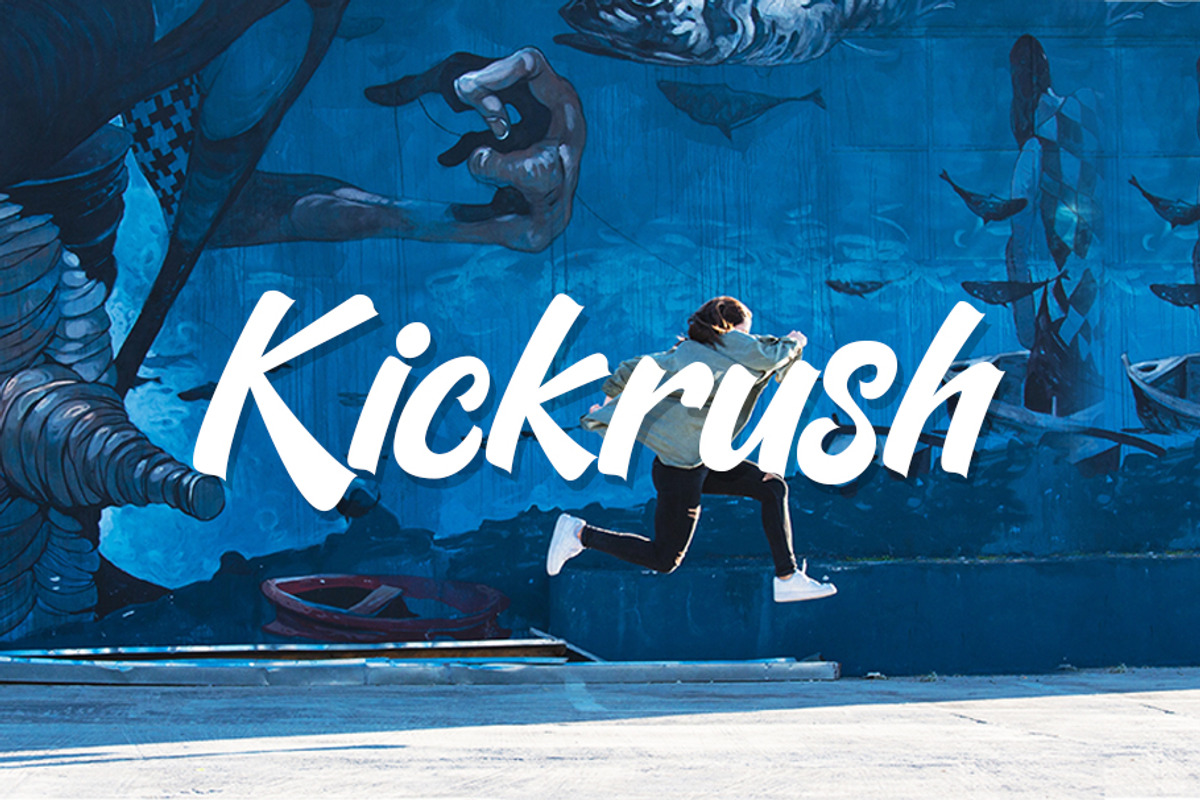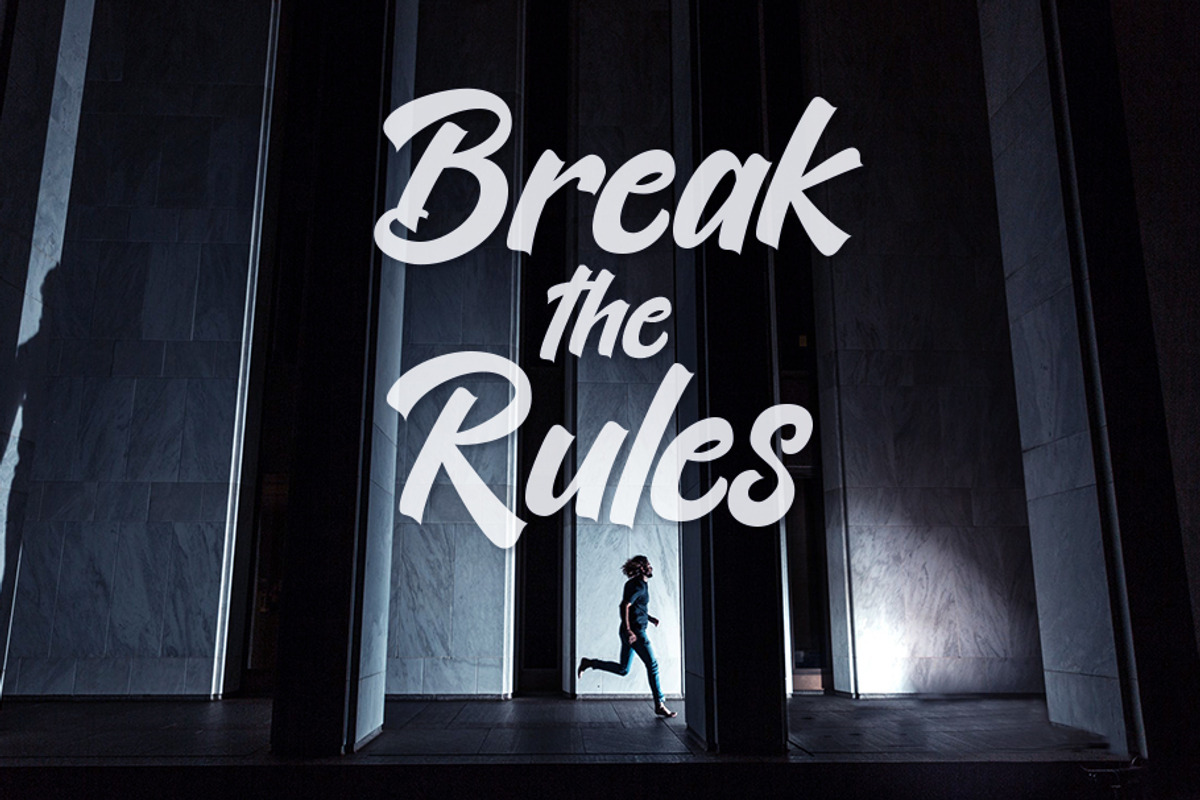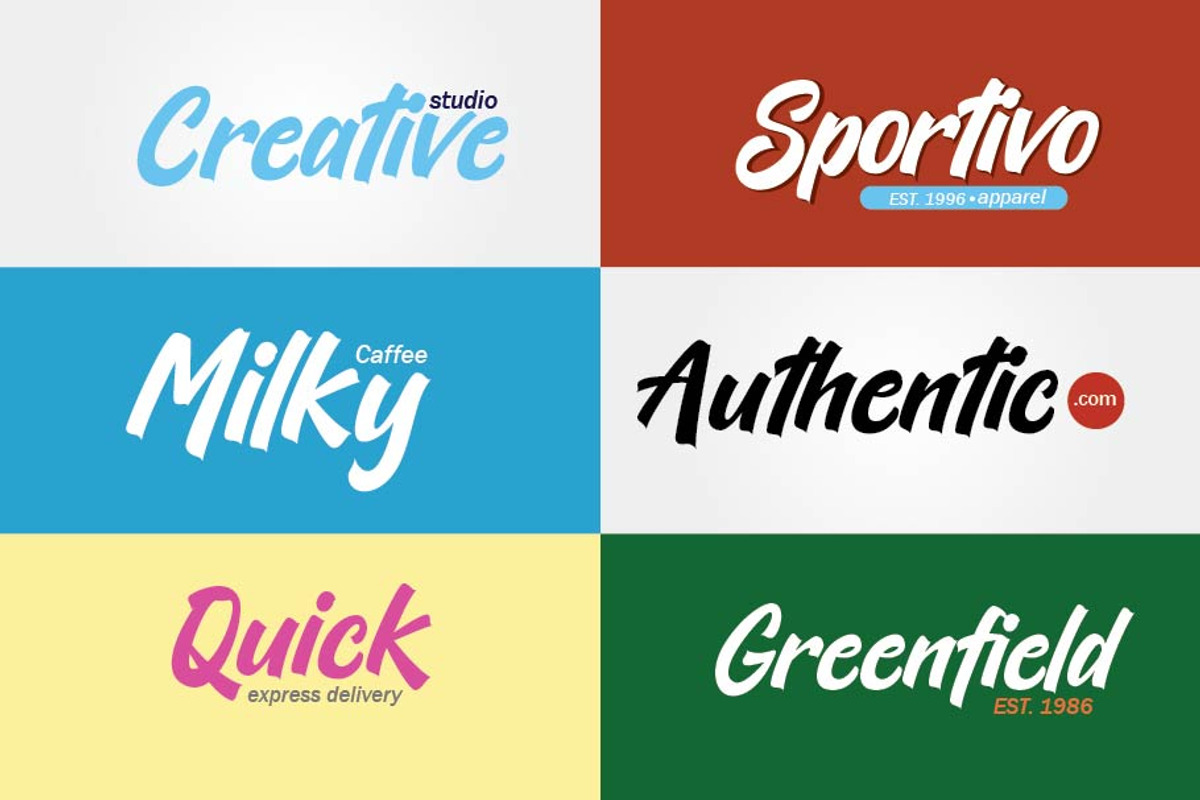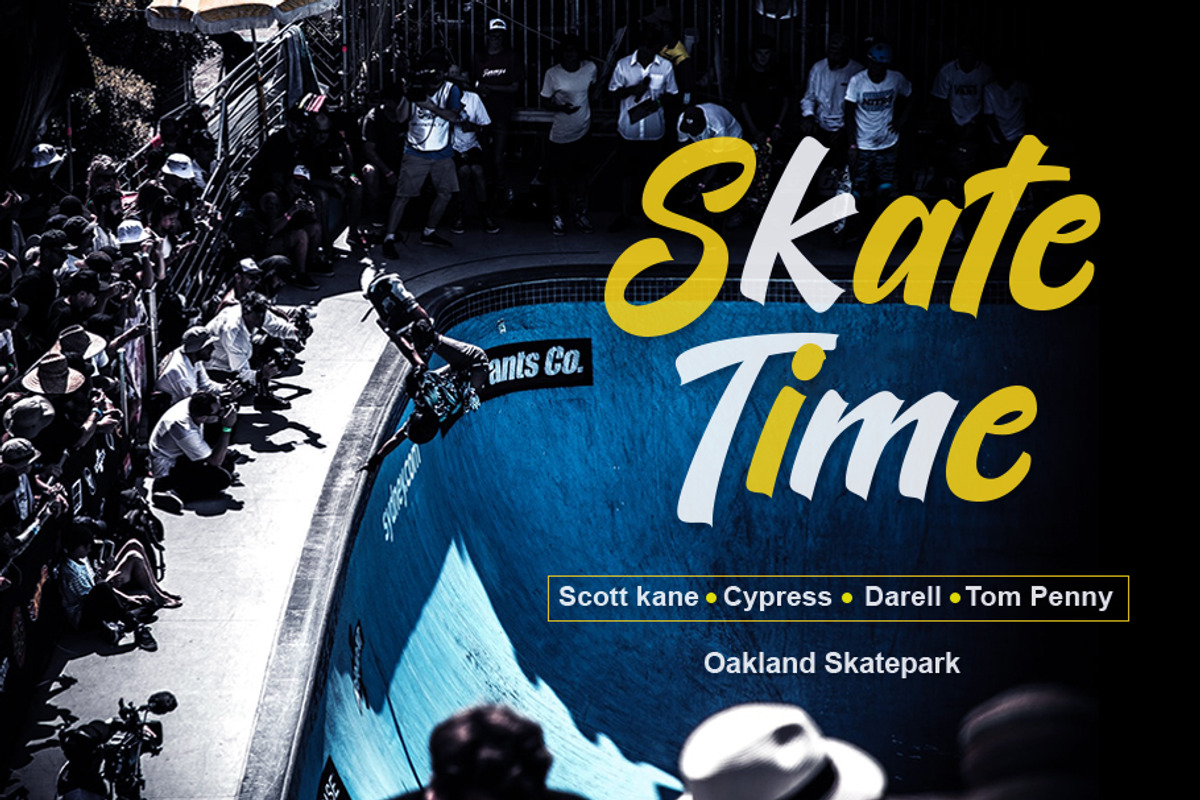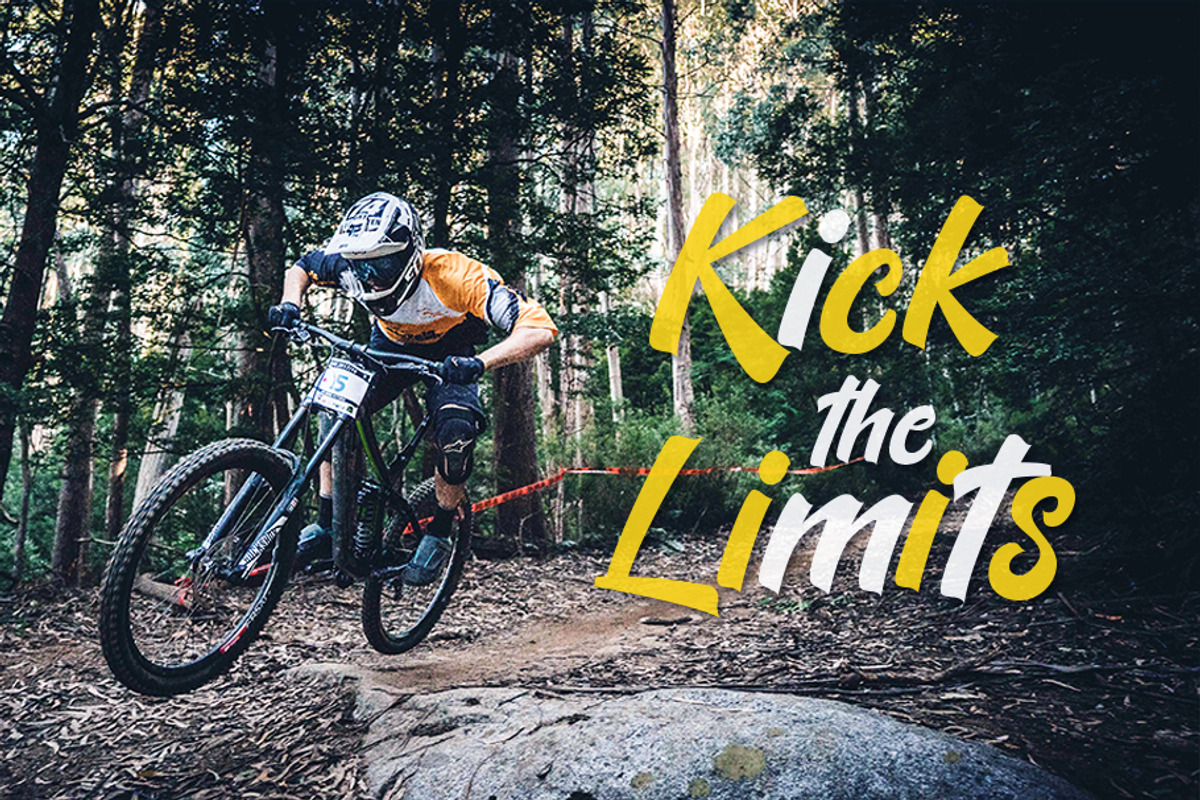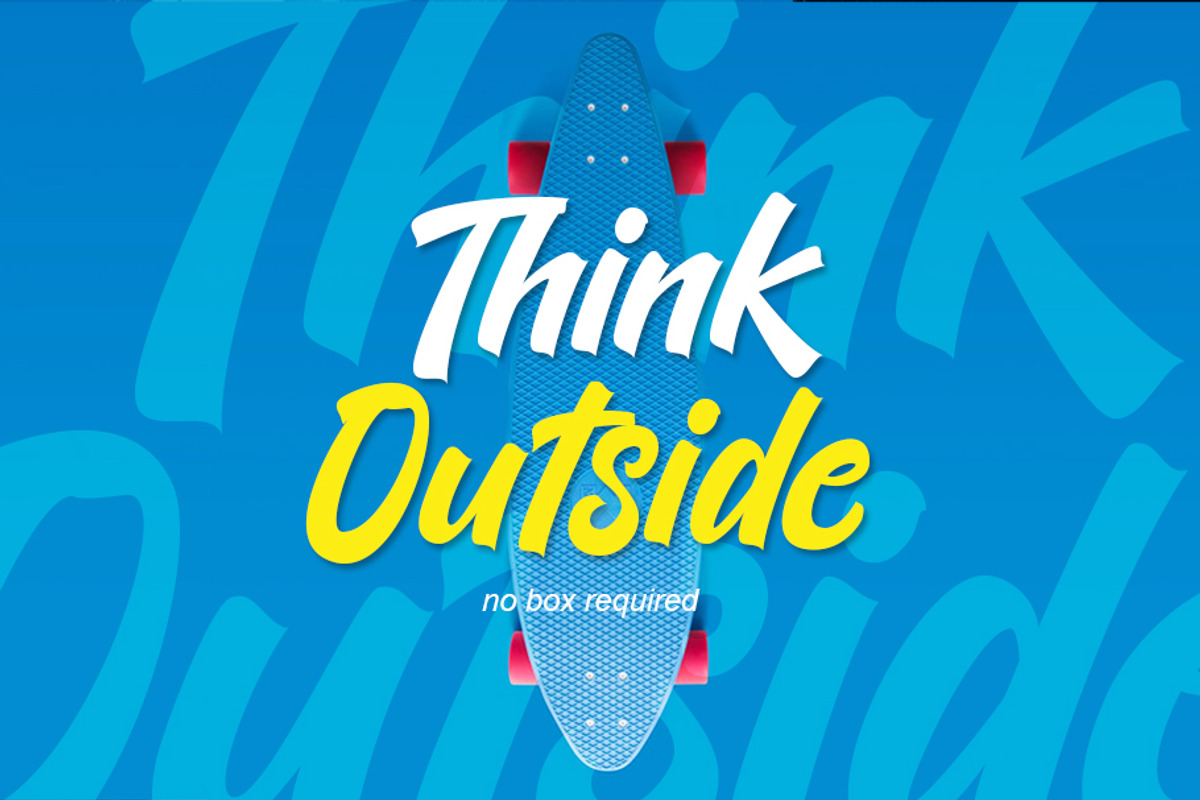
Kickrush
Kickrush is a font with the edgy characters and Positive energy for modern hand-lettered designs. It suitable for poster, logo, branding, t-shirt, packaging, book cover, hipster design, cards, and any brush lettering needs and more. Kickrush also includes full set of uppercase and lowercase letters, multilingual symbols, numerals, punctuation.